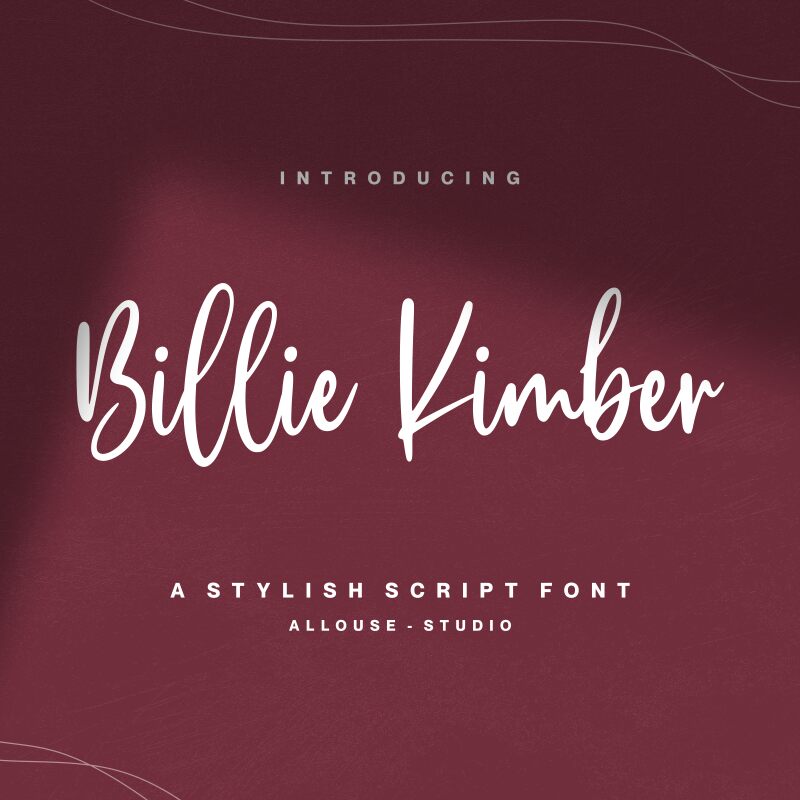
Billie Kimber
Meet Billie Kimber, the stylish script font designed by Allouse Studio. With its semi-light weight and semi-condensed width, this font is perfect for adding a touch of elegance to your designs. Use it on invitations, wedding stationary or even fashion projects - it's versatile enough to suit any occasion.The swooping curves and unique letterforms of Billie Kimber will make your designs stand out from the crowd. Whether you're looking to add a touch of sophistication to your branding or create eye-catching social media graphics, this font has got you covered.So why wait? Try out Billie Kimber today and elevate your design projects with its chic and modern style!